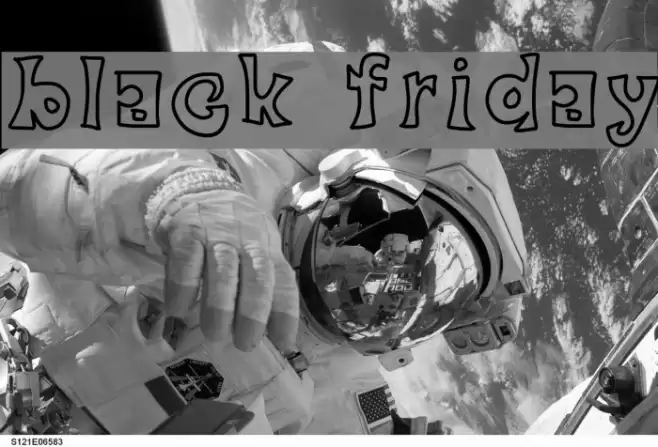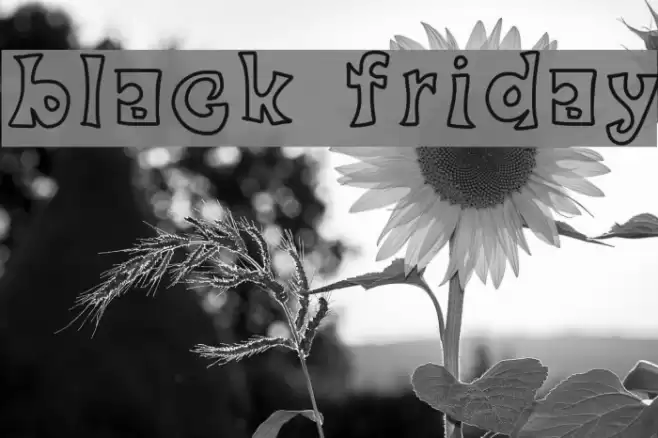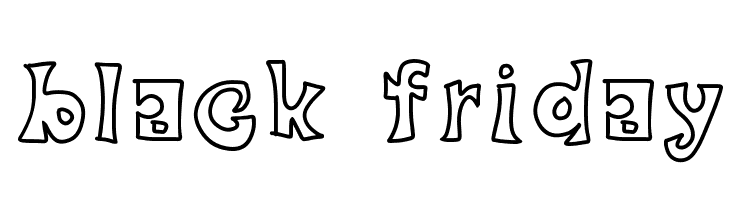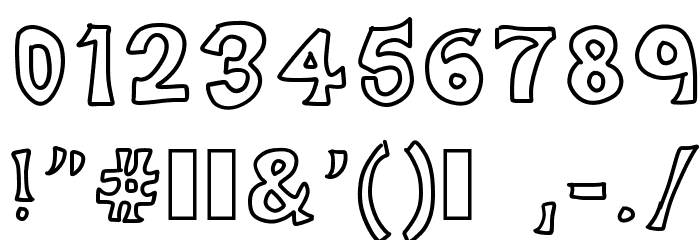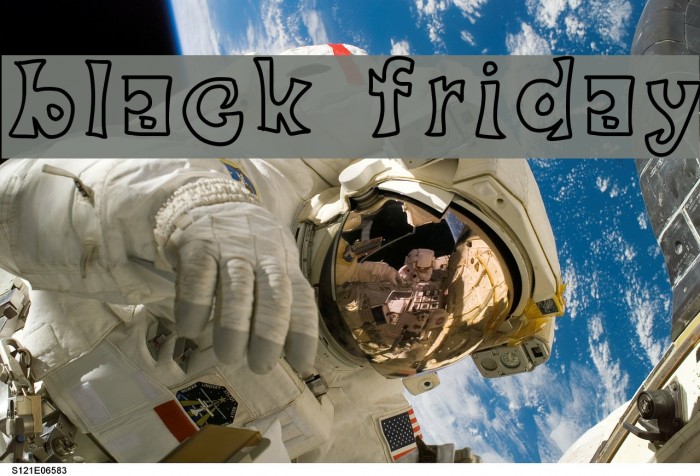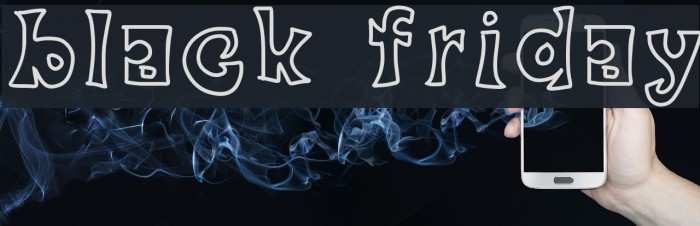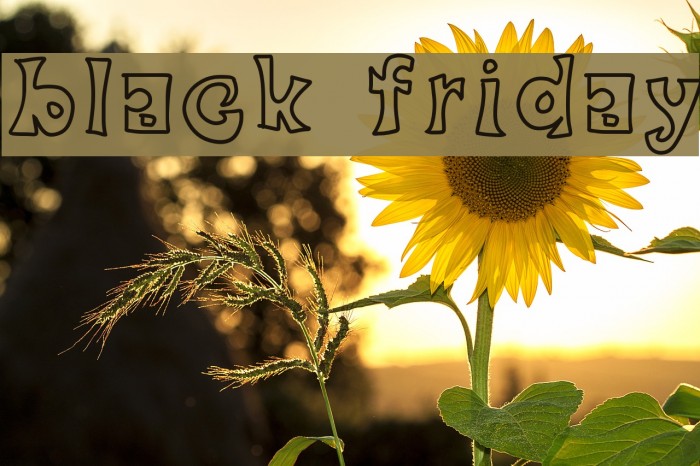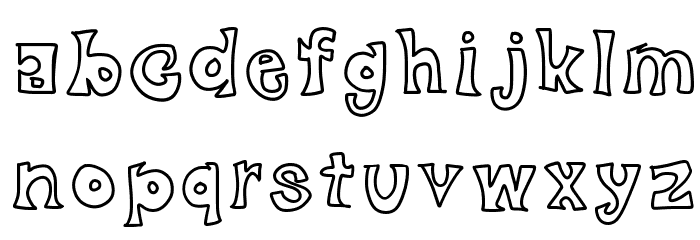
black friday Font
black friday Description
This playful and whimsical font features bold, cartoonish outlines that give each character a lively and dynamic appearance. The letters have a hand-drawn quality, with irregular shapes and varying stroke widths that add to its charm. The uppercase and lowercase letters maintain a consistent style, with rounded edges and a slightly uneven baseline, enhancing the casual and informal feel. Numbers and special characters follow the same design principles, ensuring a cohesive look across all glyphs. This font is perfect for projects that require a fun and engaging typeface, such as children's books, playful branding, or creative posters.
A playful, hand-drawn font with bold outlines and a whimsical style from Uncategorized fonts.
- Proposed Projects: Ideal for children's books, playful branding, creative posters, and casual invitations.
- Overall Style: Whimsical, Playful